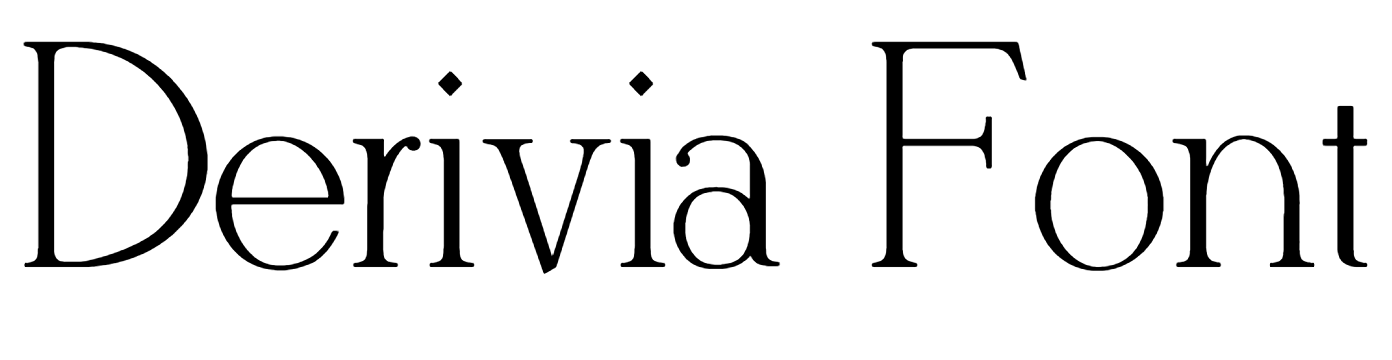
Derivia
Derivia is a serif font (2005). It has the traditional, bookish feel of type you see in novels, newspapers and long-established brands. You can download it for free and test it with your own words in the preview above.
What You Can Type With Derivia
Derivia covers the full alphabet in upper and lowercase, plus all ten numbers, so you can set names, dates and prices without switching fonts. Everyday marks like &, !, ? and @ are there too. Thanks to its accented letters, it also works for Spanish, French, German, Portuguese and Italian, not just English.
Where Derivia Works Best
Designers usually reach for fonts like Derivia when they're making book covers, magazine headlines and classic branding. Serif fonts shine in headlines and printed text. For long paragraphs on phones, check that it still reads well at small sizes.
Does Derivia support accented letters?
Yes. Derivia includes the accented letters needed for Spanish, French, German, Portuguese and Italian, so it works for more than just English.